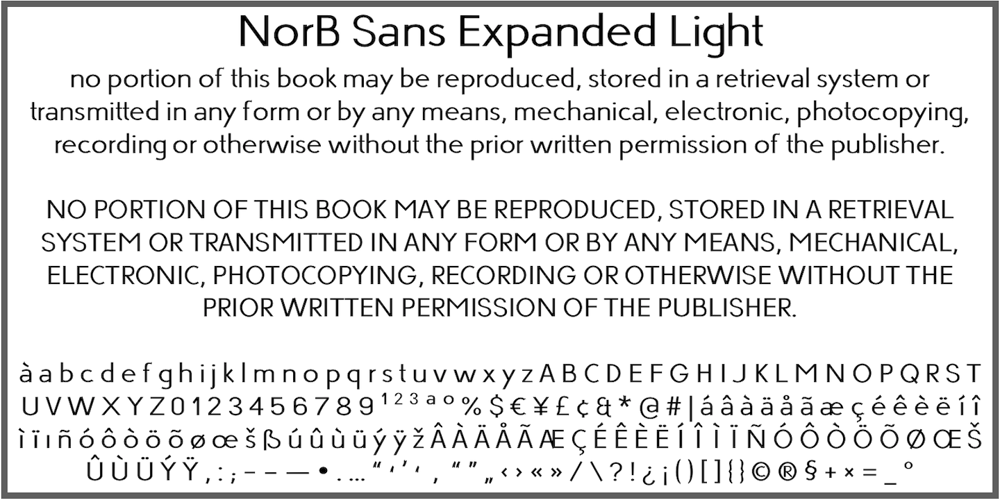
NorB Sans Expanded Font Family was designed by Nor Eddine Bahha and published by NorFonts. NorB Sans Expanded contains 6 styles and family package options. NorB Sans Expanded is my first sans serif font, it’s a friendly smooth sans serif font with 3 weights: Regular, Medium and Bold each with italic version. It includes over 1000 glyphs + OpenType features (Access All Alternates, Small Capitals From Capitals, Case-Sensitive Forms, Discretionary Ligatures, Denominators, Fractions, Historical Ligatures, Kerning, Standard Ligatures, Localized Forms, Numerators, Ordinals, Small Capitals and Superscript.)This font would be perfect for both texts and titles, and pairs beautifully with other fonts already in your library, especially handwritten and serif fonts. The resultant texture is lively but not intrusive, and makes for a friendly and readable text. You may use it in everything from logotypes to social media posts, website and magazine layouts to poster designs.